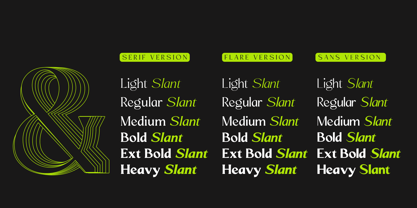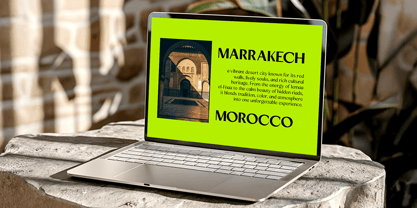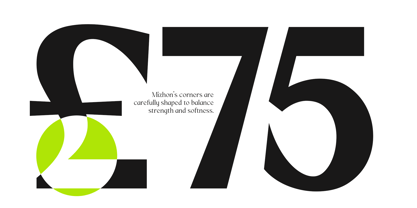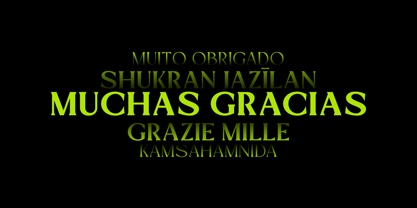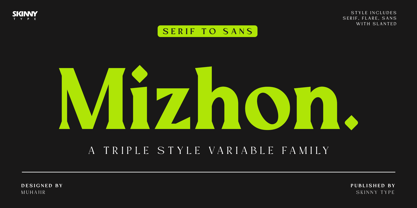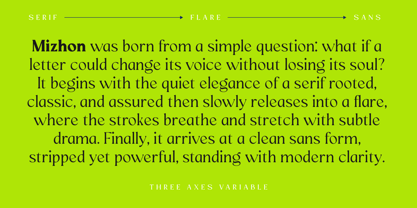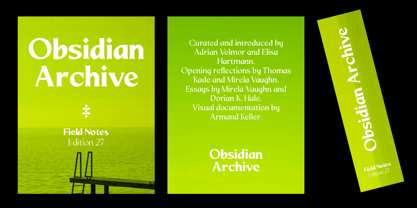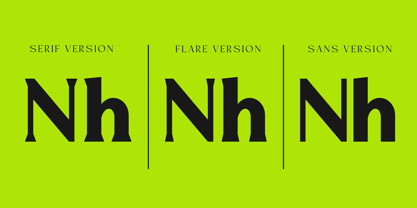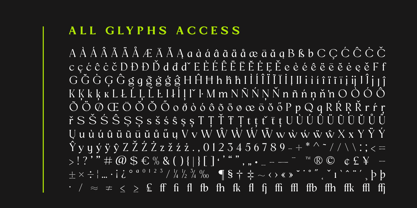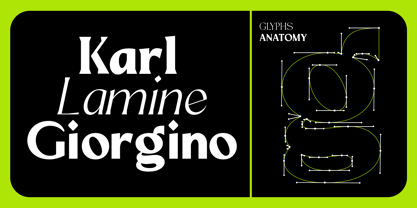
Mizhon
Mizhon is a contemporary triple-style variable typeface that bridges serif, flare, and sans within one cohesive system. Designed with a bold, display-forward personality, it carries a confident visual weight while maintaining smooth curves and controlled proportions. The structure feels modern and assertive, yet refined enough to adapt across editorial and branding applications. Design Characteristics Mizhon letterforms are built on a strong geometric foundation softened by organic curves. The uppercase characters present wide stances and balanced counters, giving the headlines a commanding presence. Lowercase forms are slightly rounded, creating warmth without sacrificing clarity. The transitions between thick and thin strokes are carefully moderated, producing a clean contrast that remains legible at large sizes. The flare style subtly expands terminals, creating a dynamic tension between serif and sans. Meanwhile, the serif style introduces elegant finishing details that enhance sophistication, while the sans option strips the form to its pure, minimal core. The slanted variant injects movement and momentum, ideal for expressive layouts or forward-looking brand identities. Variable System As a variable family, Mizhon allows fluid interpolation across styles and weights. Designers can fine-tune: Weight axis – from lighter, refined display cuts to heavy, impactful bolds Style transition axis – smoothly shifting from serif to flare to sans Slant axis – adding controlled italicized energy This flexibility makes Mizhon adaptable for layered typography systems, allowing cohesive branding with diverse tonal expressions. OpenType Features Mizhon includes professional typographic features such as: Standard & discretionary ligatures Stylistic alternates for select characters Multilingual support Case-sensitive punctuation Numeral options (lining & tabular, if included in full family) Best Use Mizhon excels in: Editorial headlines Branding & visual identity Poster design Luxury packaging Digital hero typography